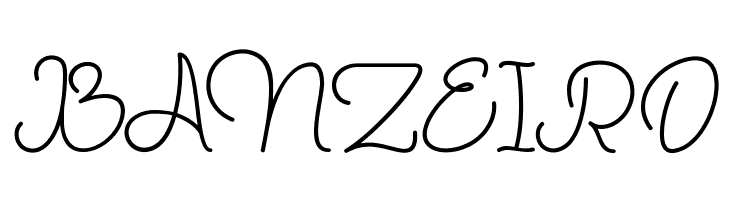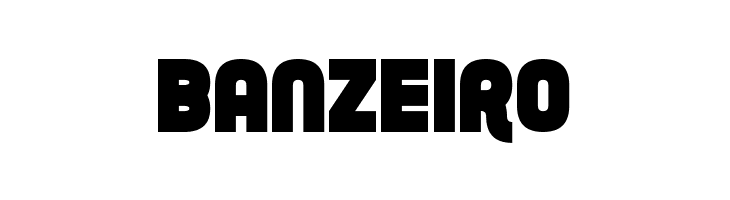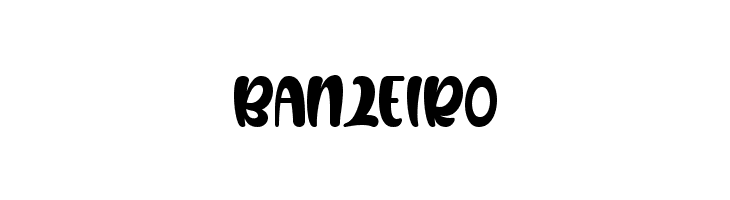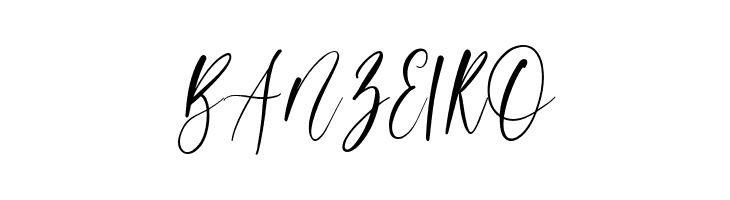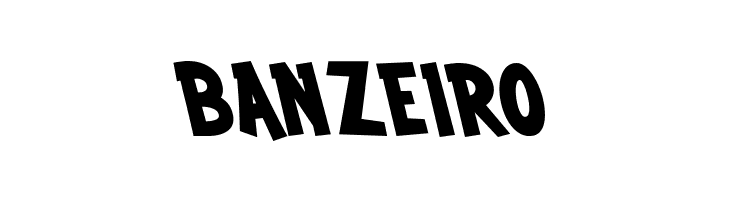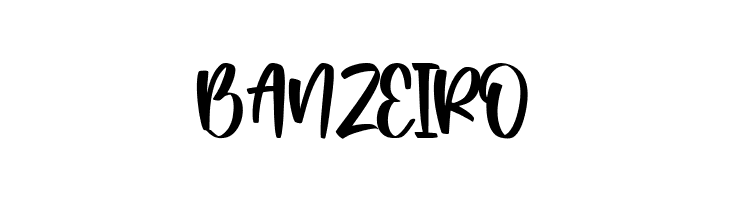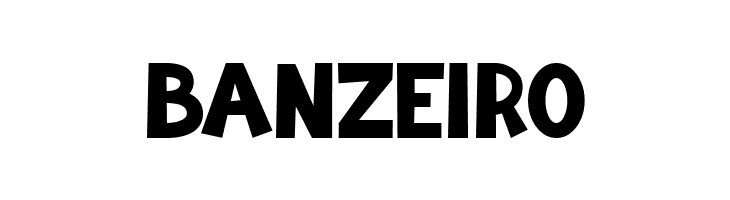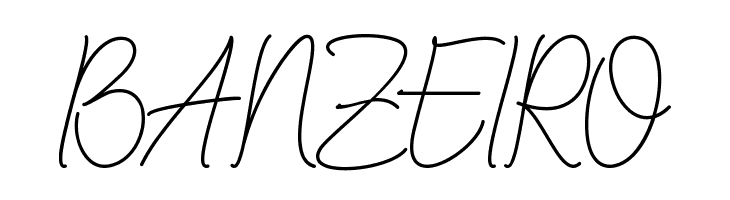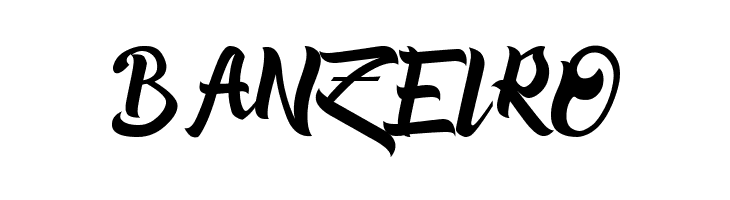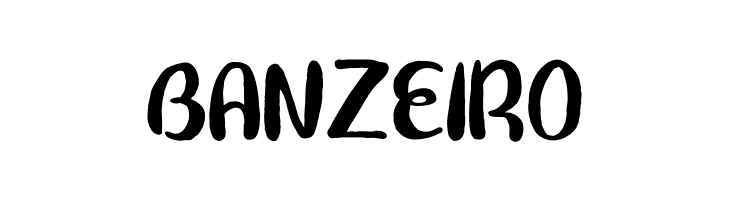
A classic serif font with elegant thin strokes and subtle contrast, ideal for formal and editorial use.
A playful, bold font with rounded strokes and whimsical shapes.
A bold, angular font with a jagged, edgy style.
A bold, hand-drawn font with dynamic and edgy characteristics.
A dynamic, handwritten font with bold, sweeping strokes and artistic flair.
A bold, cursive script font with dynamic and expressive strokes.
A bold, flowing script font with elegant curves and interconnected letters.
A bold, modern serif font with elegant curves and strong strokes.
An elegant, flowing script font with graceful cursive strokes.
A bold, brush-style font with dynamic and expressive strokes.
A bold, handwritten font with a lively and dynamic style.
A bold, handwritten script font with a smooth, flowing style.
A bold, angular font with a graffiti-inspired style.
A playful, bold, and hand-drawn font with rounded edges.
A bold, high-contrast serif font with a strong, elegant presence.
An elegant and flowing script font with intricate loops and swashes.
A flowing, cursive handwritten font with elegant, connected letters.
A graceful script font with fluid, interconnected cursive strokes.
A bold, rounded font with smooth curves and consistent weight.
A fluid and elegant script font with a modern, handwritten style.
A graceful and fluid script font with elegant, connected strokes.
A dynamic and expressive script font with fluid, cursive letterforms.
A dynamic, handwritten-style font with medium contrast and expressive strokes.
A lively, expressive script font with bold, cursive strokes and playful loops.
A delicate, elegant script font with a handwritten style.
A modern, clean sans-serif font with excellent readability.
A bold, modern font with strong, uniform characters.
A bold, italic font with a dynamic and modern style.
A bold, modern font with clean lines and excellent readability.
A bold, italic font with a modern and dynamic style.
A bold, modern sans-serif font with strong lines and uniform stroke width.
A bold, italic typeface with a modern and dynamic style.